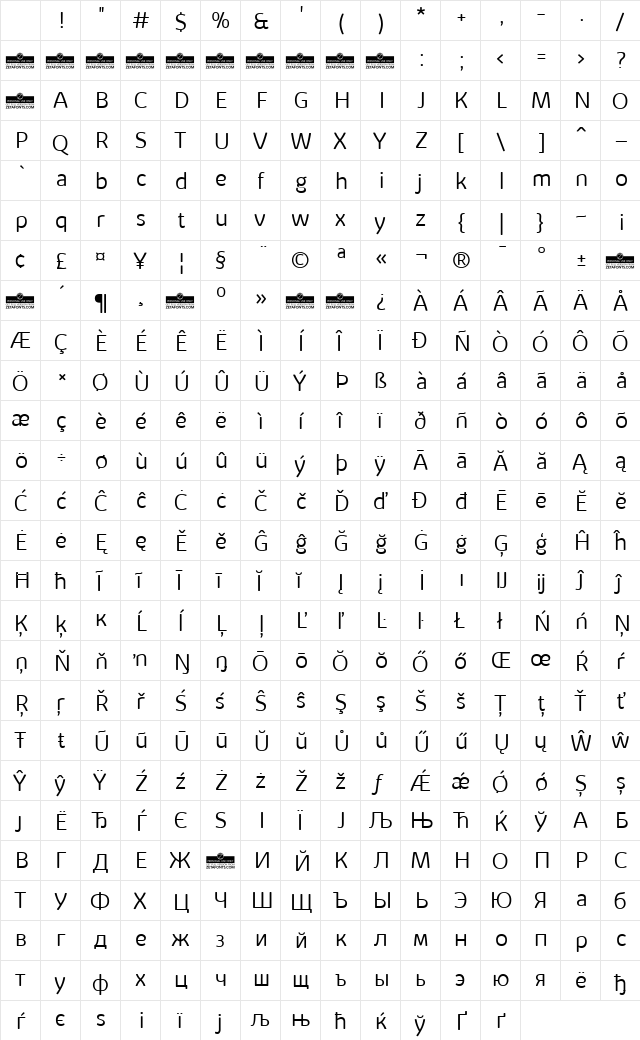
Kabrio Alternate is a composed and adaptable typeface that performs quietly and consistently across a wide range of design contexts. Its slender proportions lend an understated elegance to any composition.